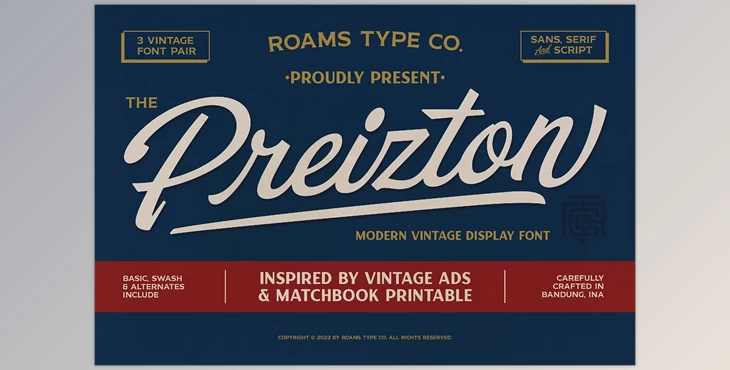
RTCO Preizton Font Family:
Introducing RTCO Preizton Font, a homage to vintage graphic design styles from the 1960s to the 1980s, inspired by the aesthetics of matchbooks and advertisements of that era.
This font family comprises three distinct types: Sans, Serif, and Script, each with its unique characteristics.
RTCO Preizton Sans features an OpenType ligature feature, adding a dynamic touch to the font, while the Script font offers alternative glyphs for enhanced visual appeal.
Ideal for various graphic design applications such as logotypes, merchandise, printed stickers, and branding materials.
- RTCO Preizton Serif
- RTCO Preizton Sans
- RTCO Preizton Script